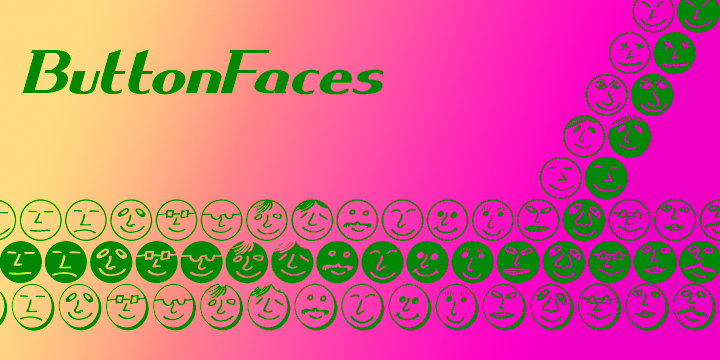
ButtonFaces is a dingbat font family. This typeface has three styles and was published by Greater Albion Typefounders.
Here’s something for all Halloween projects! ButtonFaces explores just how much emotion and description of a character can be put into a simple iconic representation of a face. Use them as ‘Emoticons’ or traditional printers ornaments.